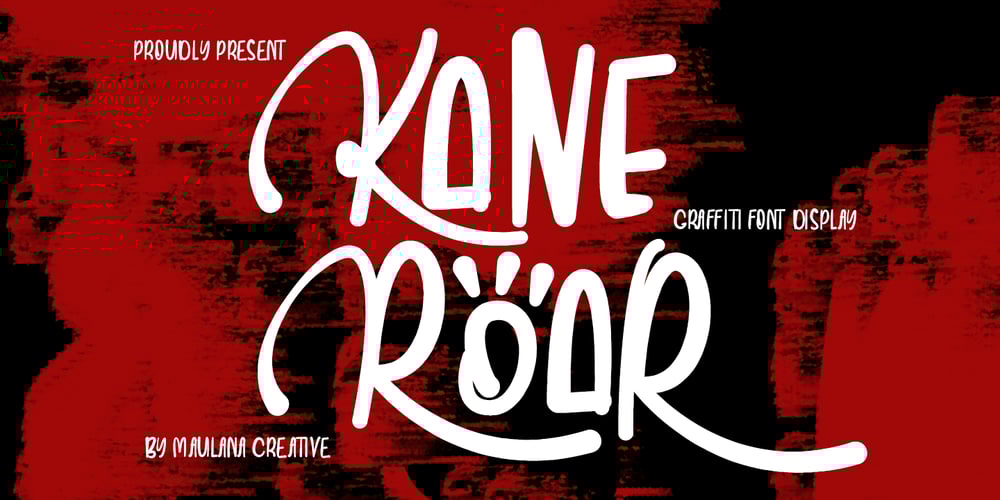
MC Kane Roar Font Family was designed by Gilang Maulana and published by Maulana Creative. MC Kane Roar contains 1 styles and family package options. Kane Roar urban graffiti display font. Heavy stroke, fun character with a bit of ligatures. To give you an extra creative work. Kane Roar urban graffiti display font support multilingual more than 100+ language. This font is good for logo design, Social media, Movie Titles, Books Titles, a short text even a long text letter and good for your secondary text font with script or serif. Make a stunning work with Kane Roar urban graffiti display font.Cheers,Maulana Creative